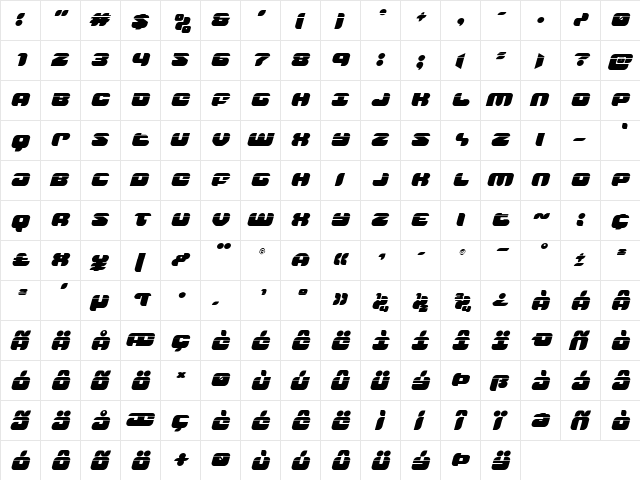
Groovy Smoothie Laser Italic Italic
Design Context for Groovy Smoothie Laser Italic Typeface
Groovy Smoothie Laser Italic is a composed and adaptable typeface that performs quietly and consistently across a wide range of design contexts. Its italic angle brings a sense of urgency and motion to the letterforms.
Pro Tip: Use Groovy Smoothie Laser Italic for emphasis, pull quotes, and subheadings where its slanted energy can add rhythm to the layout.